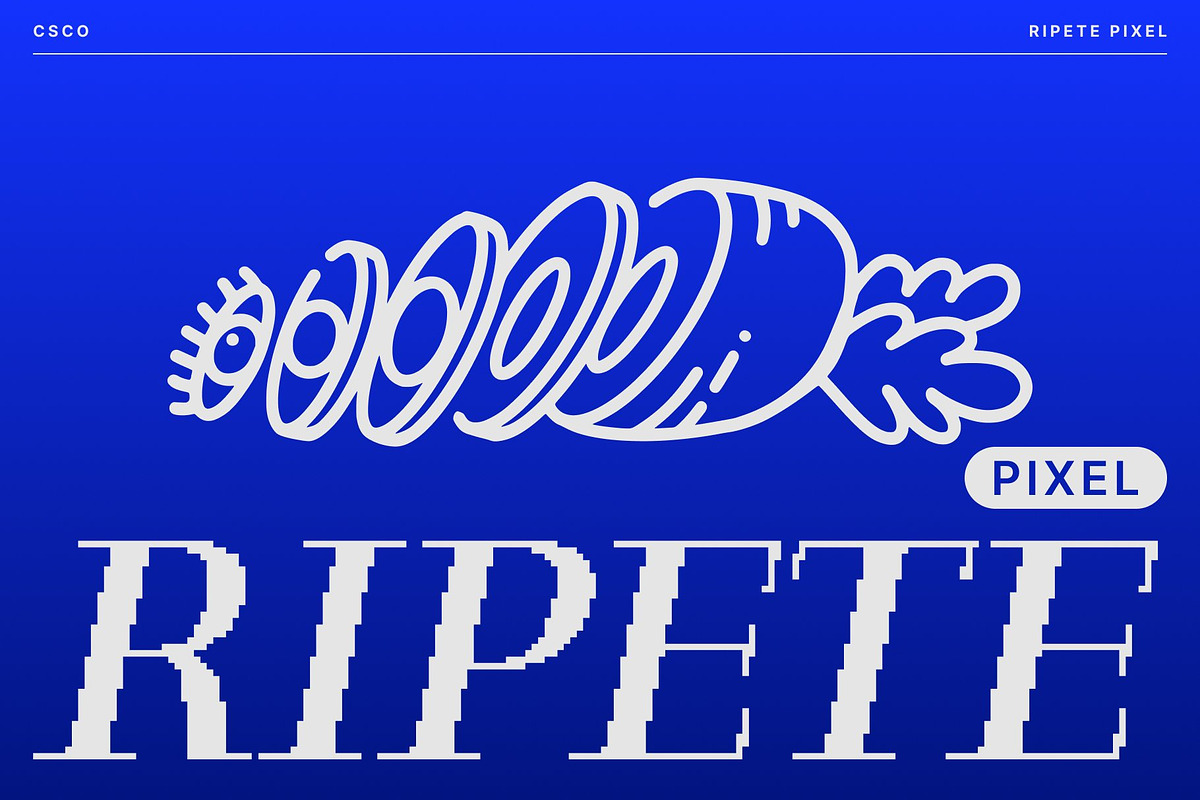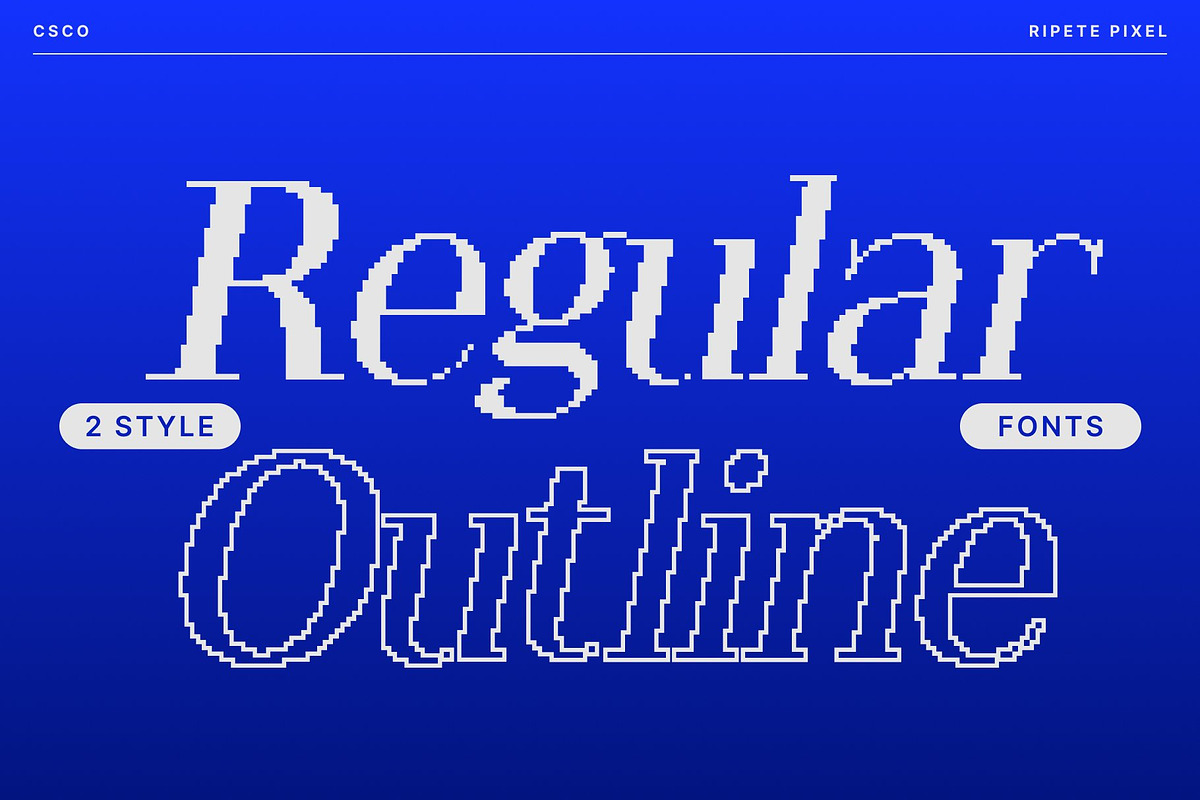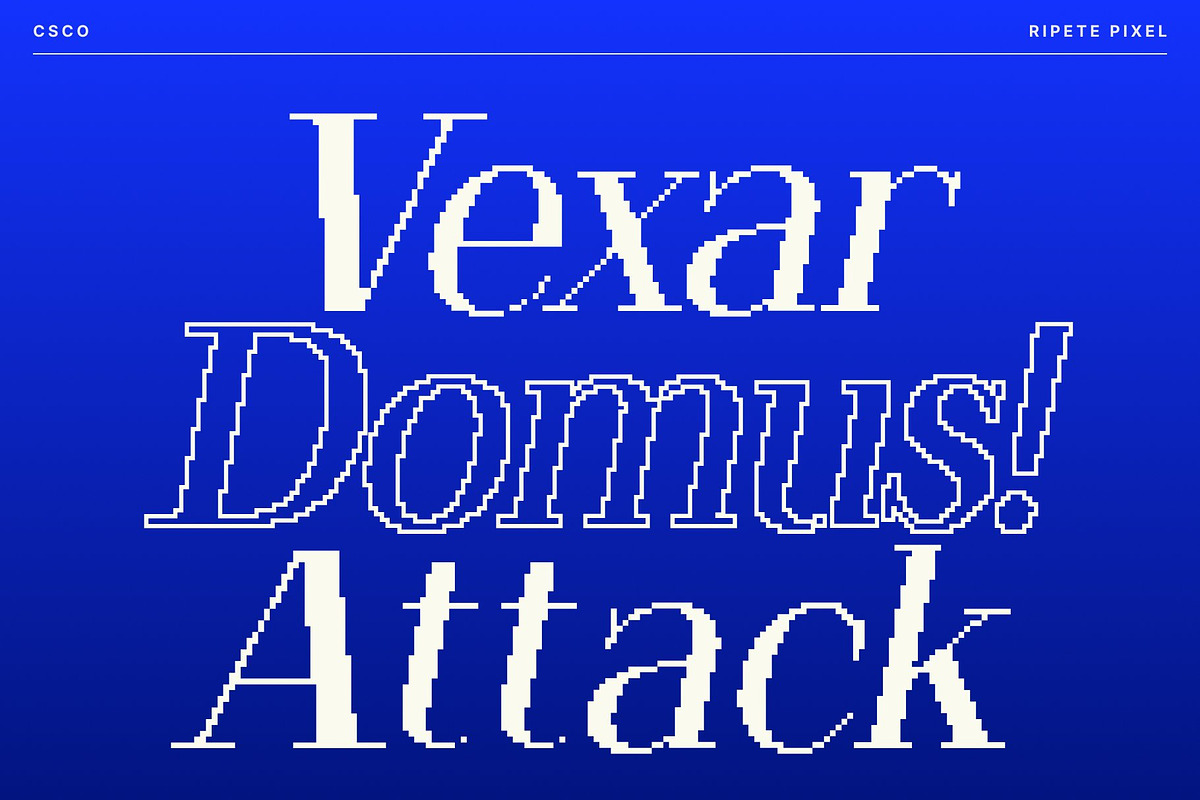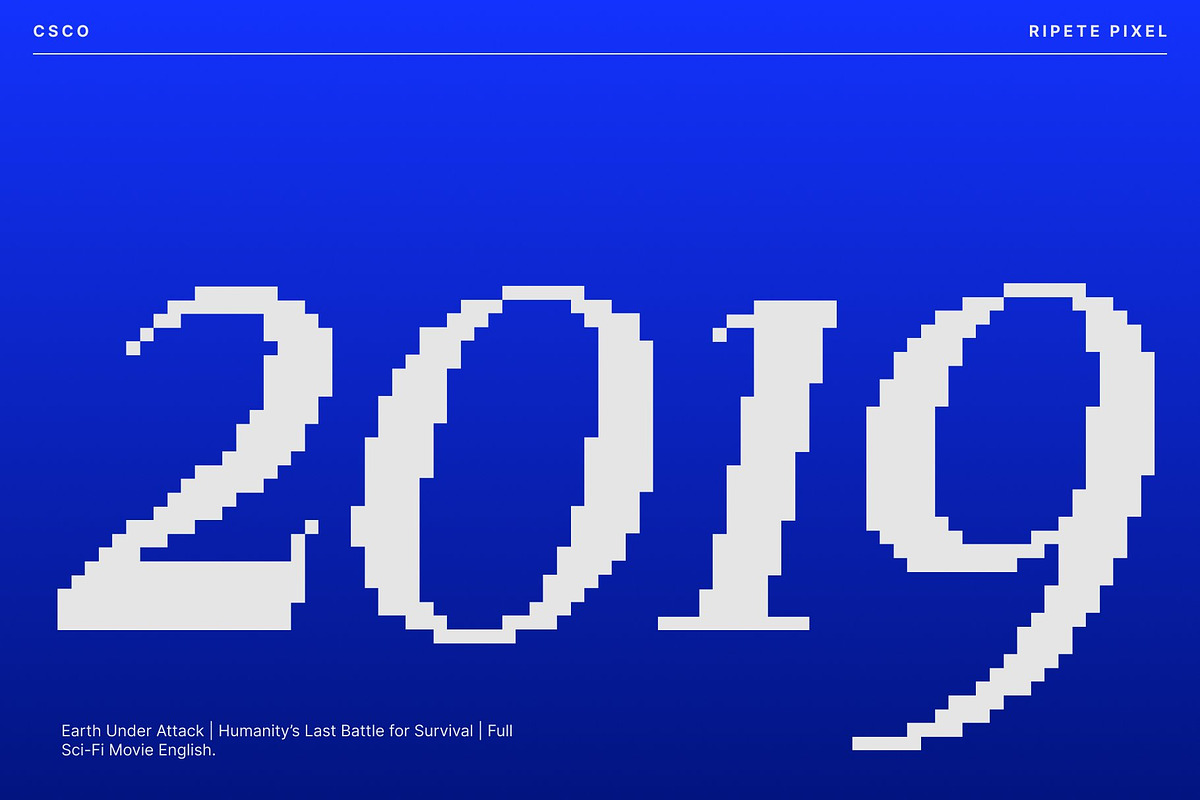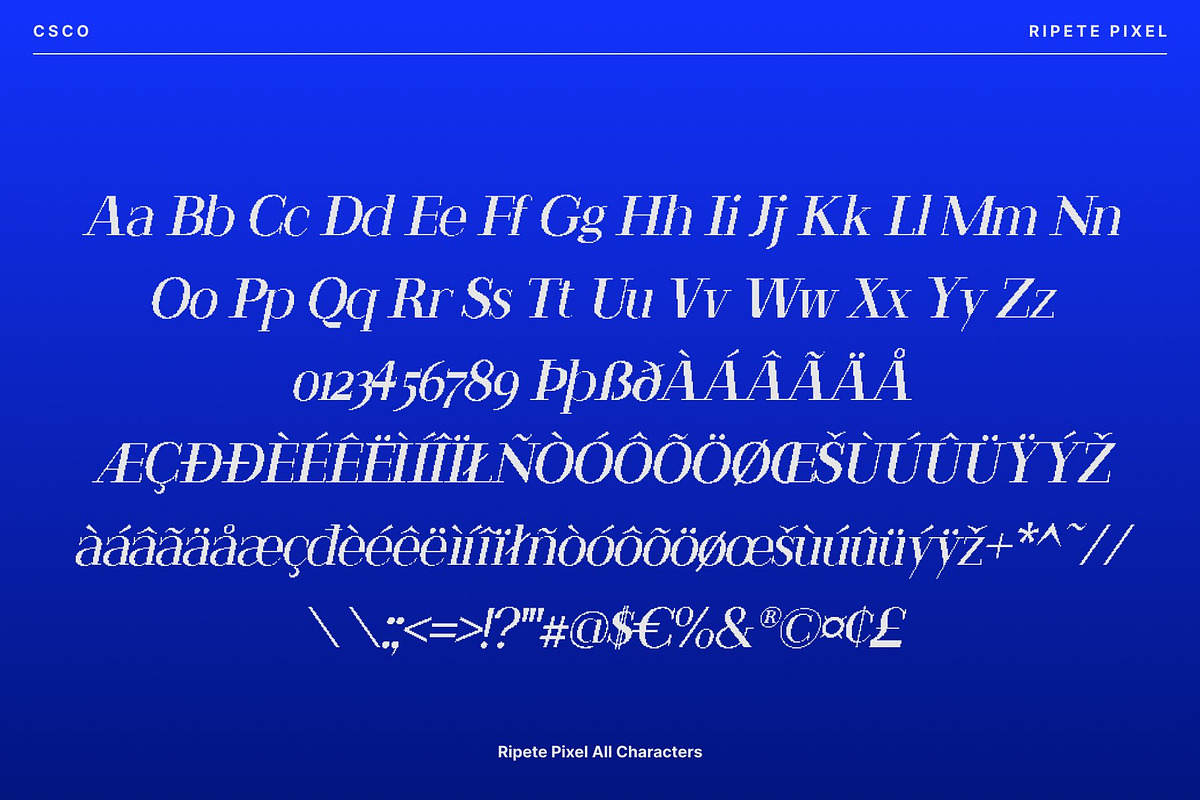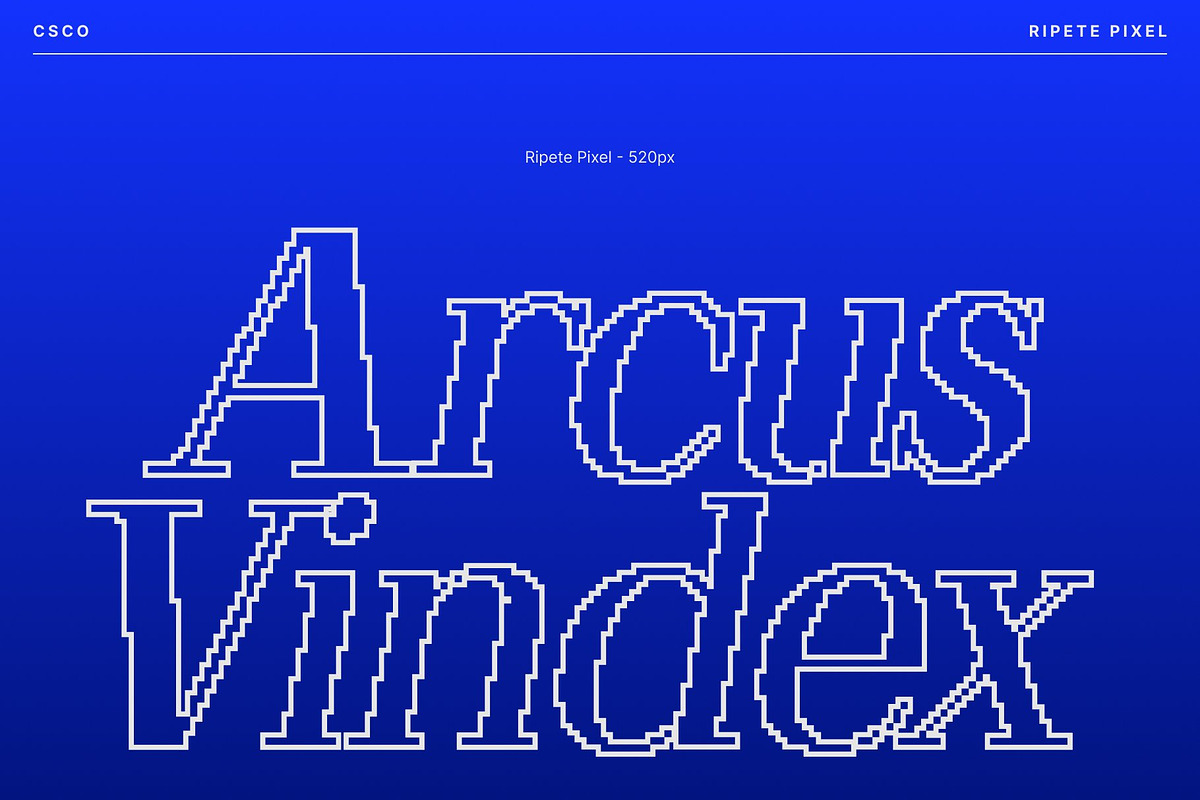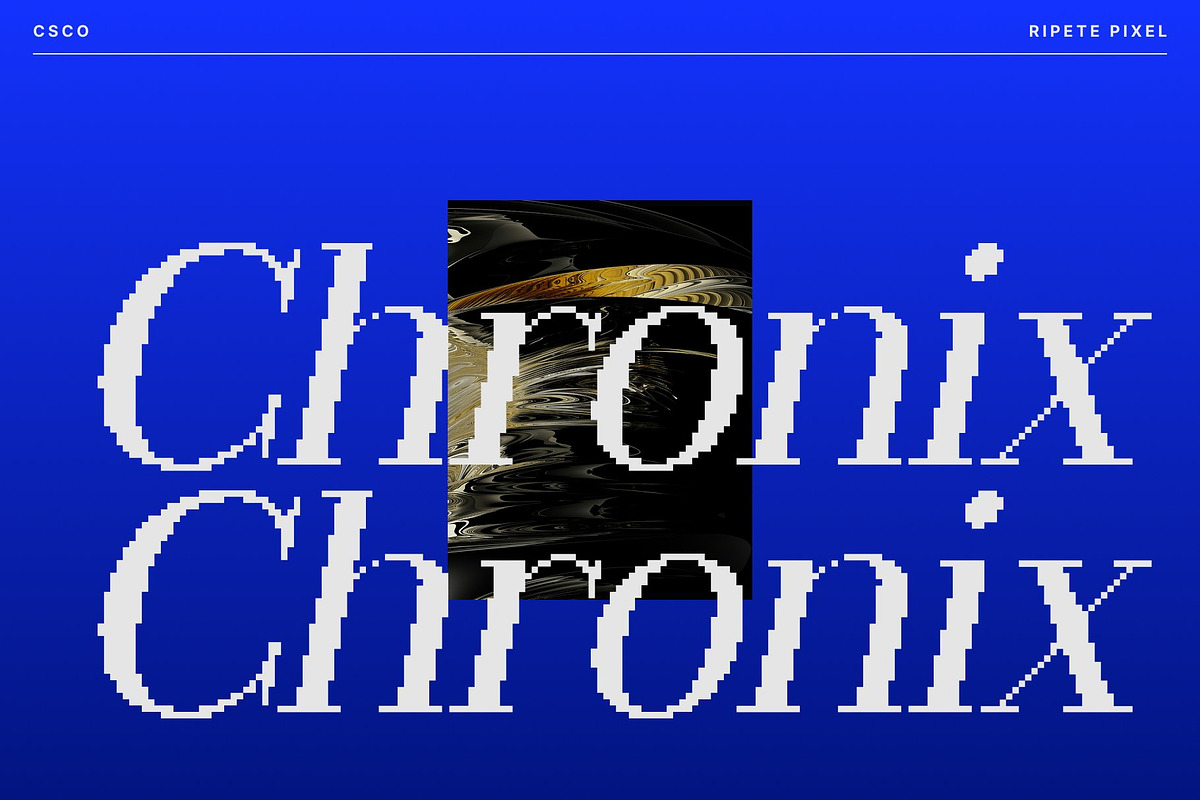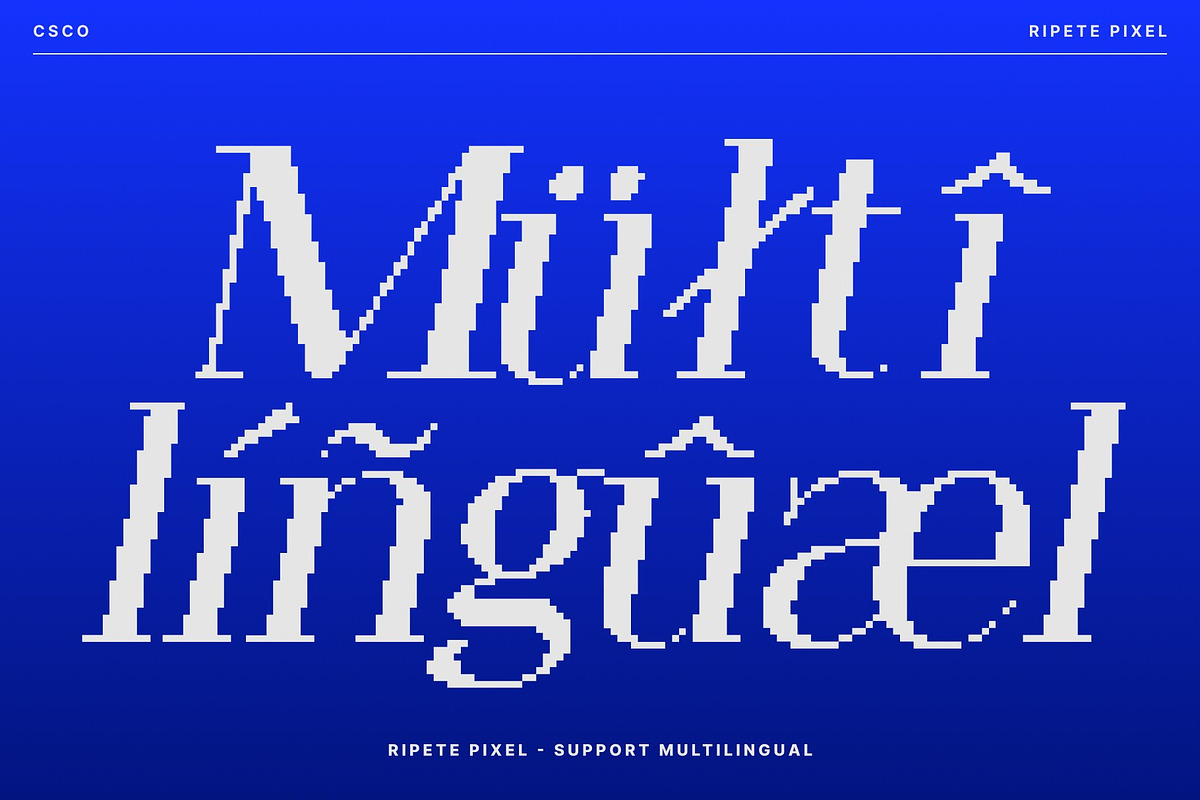
Ripete Pixel
Ripete Pixel – Classic Modern Serif with Pixel Precision
Timeless Serif Elegance Meets Digital Craft This is a classic modern serif font reimagined through the lens of pixel artistry. It blends refined serif structure with a pixel-style finish, creating a font that feels both polished and thoughtfully crafted. The result is a typeface that balances tradition and innovation, perfect for designers seeking a sophisticated yet distinctive look.
Slender Lines for Clean, Professional Aesthetics Crafted with clean, slender strokes, this font delivers a sharp and elegant appearance. Its graceful proportions and modern serif anatomy help your design appear intentional, organized, and visually appealing. The thin details and pixel precision add a sense of finesse that works beautifully in professional environments.
Pixel Texture for Character and Depth The pixel styling injects a subtle digital texture, giving each letter a unique and artistic twist. This combination of modern serif forms and pixel elements creates a fresh aesthetic suitable for both contemporary and nostalgic visual themes. The pixel effect enhances depth without compromising the clarity and sophistication of the serif structure.
Versatile for Branding, Editorials, and Posters Designed to perform across various visual platforms, this font excels in branding, posters, editorial layouts, and visual identity projects. Its clean structure supports clear communication, while the pixel detail adds a memorable stylistic edge. Whether you’re designing a minimalist brand, a modern magazine layout, or a refined campaign, this font elevates every composition.
- Ripete Pixel Regular
- Ripete Pixel Outline